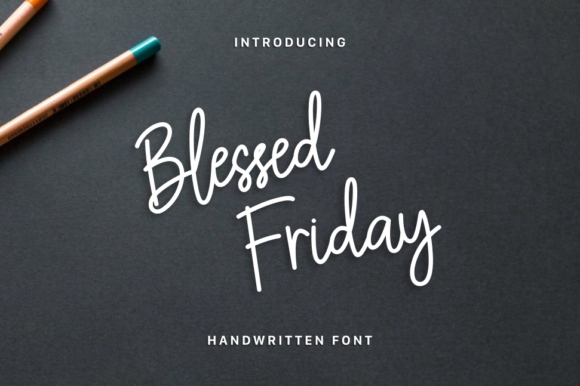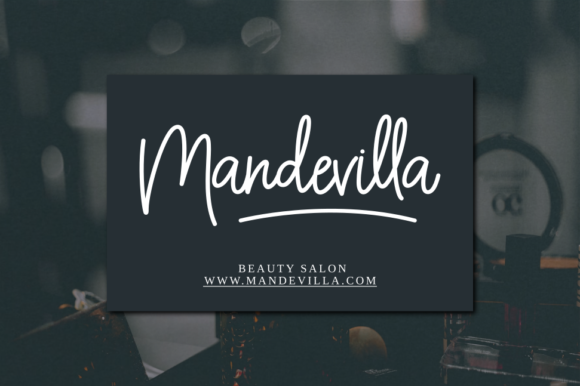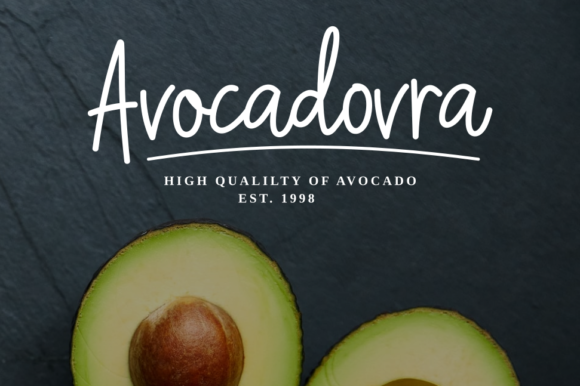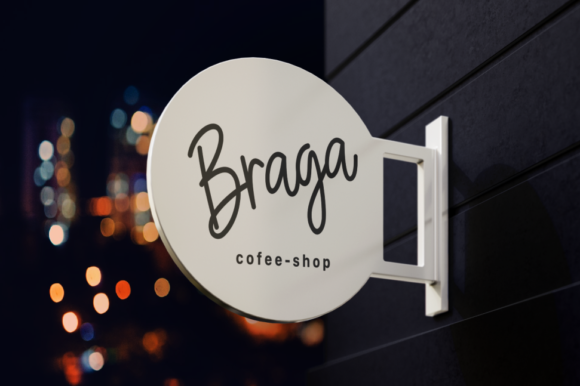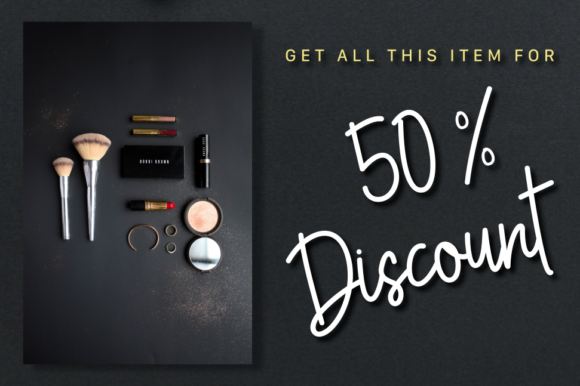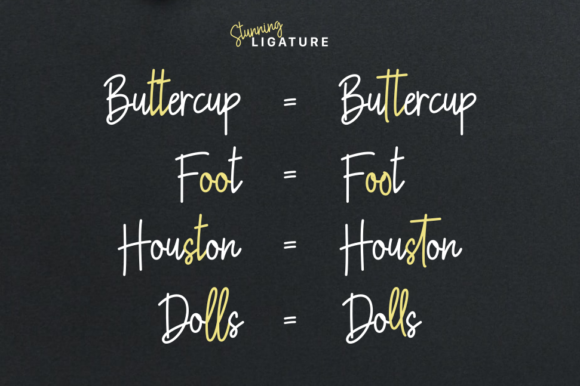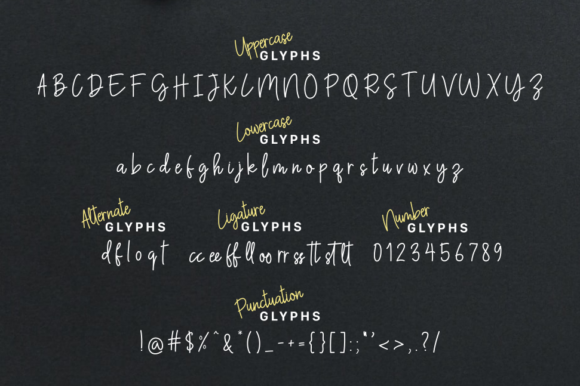
Blessed Friday Font
About Blessed Friday Font
Blessed Friday is a beautiful and laid-back handwritten font. It has a modern yet whimsical style and it will undoubtedly immerse your designs into a magical world.